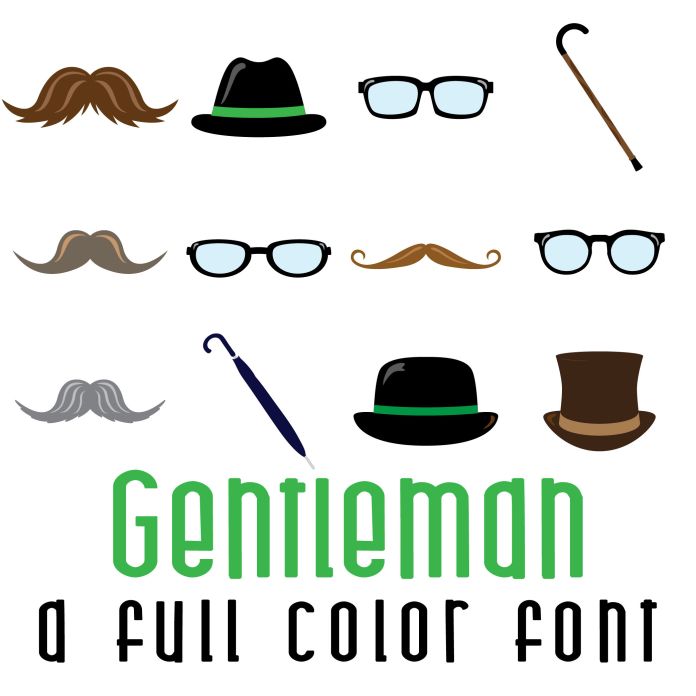
This fun full color font features 52 fun gentlemanly fashion. Perfect for cards, crafts, gifts, decor, scrapbook pages, planner stickers, Father's Day and more! Glyphs are A-Z in bubbles and a-z (different colors).